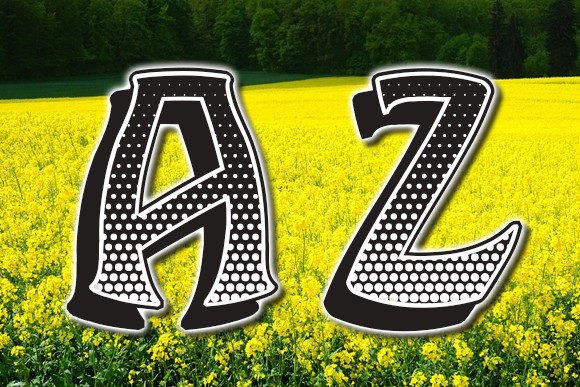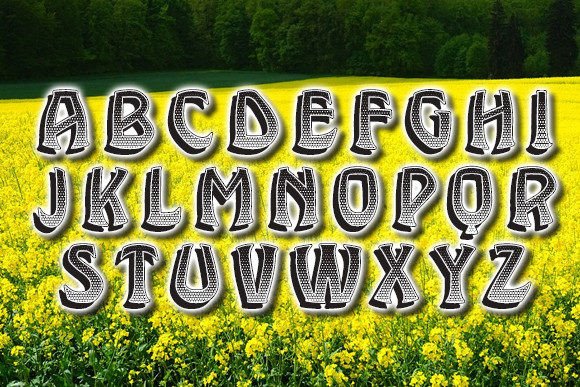
Introducing Brassica Font: Elevate Your Designs with Elegance
In the world of typography, a font can make or break a design. For designers and crafters looking to add a touch of extravagance to their work, Brassica Font is an exceptional choice. This stunning display font is versatile, elegant, and sure to make your projects stand out. Whether you’re working on posters, flyers, t-shirts, or any other creative endeavor, Brassica Font is the perfect companion to bring your vision to life.
What is Brassica Font?
Brassica Font is a meticulously crafted display font designed to add a luxurious and sophisticated feel to your designs. Its intricate details and flowing lines make it an ideal choice for projects that demand a high level of elegance and refinement. The font’s unique characteristics are inspired by classic typography, yet it carries a modern twist that sets it apart from more traditional fonts.
Key Features of Brassica Font
- Extravagant Design: Brassica Font boasts an extravagant design that is sure to capture attention. Its elaborate strokes and beautiful ligatures make it perfect for creating stunning headlines and titles.
- Versatility: This font is incredibly versatile, making it suitable for a wide range of projects. From posters and flyers to t-shirts and branding materials, Brassica Font can be used in various contexts to add a touch of sophistication.
- High-Quality: The font is designed with high-quality in mind, ensuring that it looks great in both print and digital formats.
Applications of Brassica Font
Brassica Font’s versatility makes it suitable for a variety of applications. Here are some of the most popular uses:
- Posters: Create eye-catching posters for events, promotions, or informational campaigns. The font’s bold and elegant appearance ensures that your message will stand out.
- Flyers: Whether you’re advertising a sale, event, or service, Brassica Font can help you create flyers that grab attention and convey your message effectively.
- T-Shirts and Apparel: Add a touch of elegance to your t-shirt designs with Brassica Font. It’s perfect for creating unique and stylish apparel that stands out from the crowd.
- Branding and Logo Design: Use Brassica Font to create memorable logos and branding materials. Its sophisticated look makes it ideal for businesses looking to establish a premium image.
Tips for Using Brassica Font Effectively
To get the most out of Brassica Font, consider the following tips:
- Pair with Simpler Fonts: For optimal readability, pair Brassica Font with simpler fonts for body text. This contrast will help highlight the elegance of the font while maintaining clarity.
- Experiment with Colors: Don’t be afraid to experiment with different colors. Brassica Font looks great in metallic colors, pastels, and bold hues, allowing you to match it with your brand’s palette or design theme.
- Utilize Font Sizes: Play with different font sizes to create visual hierarchy. Using larger sizes for headings and smaller sizes for subheadings can add depth and interest to your designs.
Brassica Font is a powerful tool for designers and crafters looking to elevate their work with an extravagant and elegant display font. Its versatility, ease of use, and high-quality design make it an excellent choice for a wide range of projects. Whether you’re creating posters, flyers, t-shirts, or branding materials, Brassica Font is sure to bring a touch of sophistication and luxury to your designs. So, why wait? Download Brassica Font today and discover a world of limitless creative possibilities.